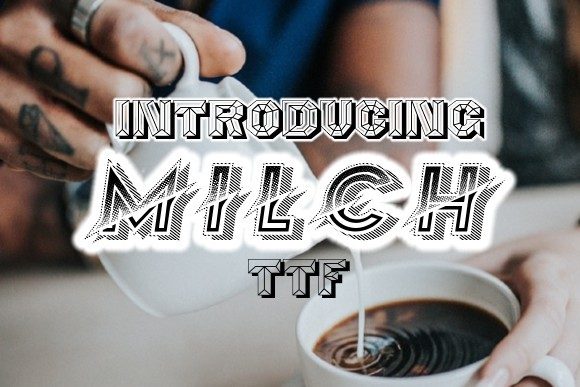
Step into the realm of visual artistry with Milch Font, an extraordinary display font that effortlessly elevates your designs. Crafted with precision and creativity, Milch Font is born to empower modern websites with its bold and captivating presence. Dive into the world of sharp corners and clean lines as you explore the limitless possibilities that await.
Lose yourself in the intricate details and impeccable craftsmanship of Milch Font. Each letter, meticulously designed to perfection, forms a symphony of visual delight. Create stunning headers that command attention, craft captivating logos that leave a lasting impression, or design eye-catching posters that ignite imaginations.
Transform your creative vision into a tangible reality with Milch Font. Its versatility knows no bounds, effortlessly adapting to a myriad of design styles and themes. Unleash your imagination and watch as Milch Font flawlessly blends with your vision, bringing your ideas to life with a touch of modern elegance.
Dare to be different, embrace the unconventional, and let Milch Font be your creative weapon of choice. Join a league of design visionaries who understand the power of exceptional typography and push the boundaries of visual communication. Immerse yourself in the world of Milch Font, where your designs will flourish and your creativity will soar.